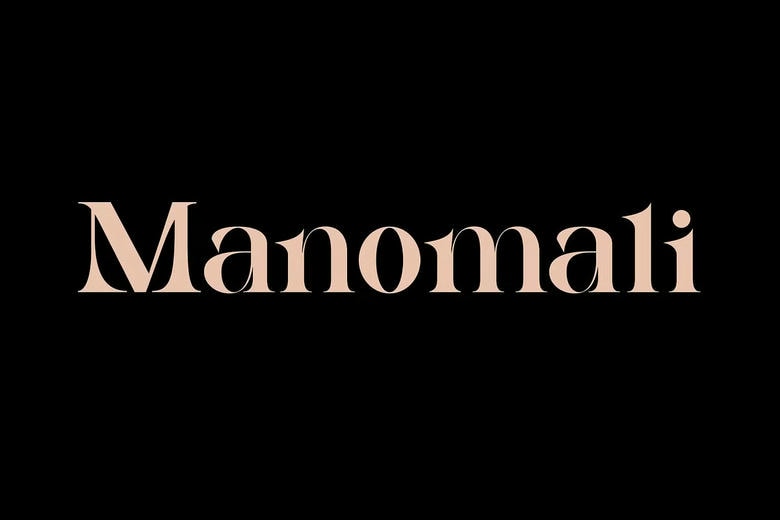
Manomali Font
Manomali is a high-end display serif typeface that incorporates both traditional and contemporary sophistication. Its elegant lines, crisp serifs, and proportions make it look luxurious and classic. Manomali is created to be unique and ideal in high-end branding, editorial layouts, fashion headlines, and beautiful poster designs. The font is confident and beautiful, and each word is bold, stylish, and memorable.
Manomali Serif Font